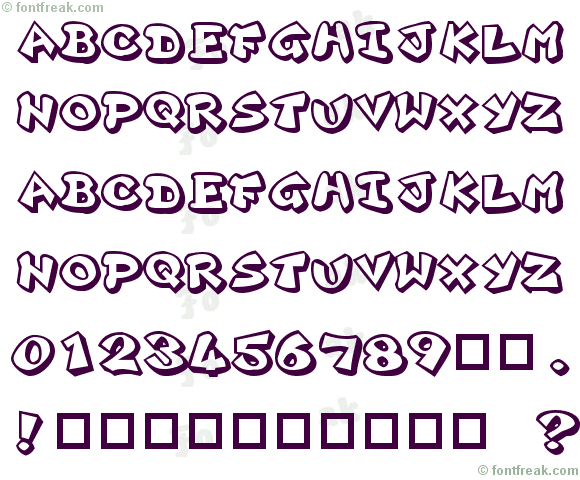
Plok
Plok by Brian Powers is a unique display font that draws inspiration from the vibrant aesthetics of video games. As a freeware typeface, Plok is accessible for anyone looking to add a playful yet striking element to their designs. This font features bold, rounded letterforms that create a sense of fun and whimsy, making it ideal for various creative projects. The stroke weight is consistent throughout, providing a uniformity that enhances readability while still maintaining a distinct personality. The spacing between characters is generous, allowing each letter to breathe and stand out effectively in any layout.
Plok is best suited for use in environments that require an eye-catching element. It excels in applications such as video game promotional materials, event flyers, and children’s book covers, where capturing attention is paramount. Additionally, it can be effectively utilized for branding in niche markets, such as toy stores or gaming cafés, where a playful and modern aesthetic is appreciated. Graphic designers will find Plok to be a fantastic choice for projects that aim to evoke nostalgia or a sense of adventure.
The target audience for Plok includes graphic designers, content creators, and small business owners who are looking for a font that can convey personality and creativity. This font stands out due to its unique blend of playful charm and modern design, making it a versatile tool in a designer's toolkit. With the Plok font free download option, anyone can incorporate this distinctive typeface into their projects without any cost, adding an engaging touch to their visual communications. Embrace the playful essence of Plok and elevate your designs with this extraordinary font.